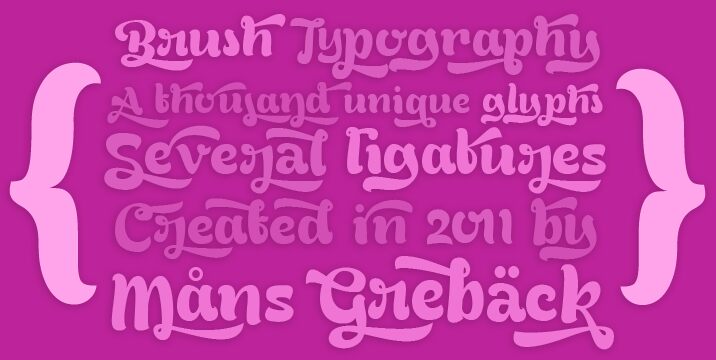
Bready by Måns Grebäck is a free groovy display font with swollen curves, dramatic thick-thin shifts, looping strokes, and the elastic swagger of 1970s psychedelic lettering. Oversized curls give the line a lively, irregular silhouette.
A bakery, record shop, or playful food brand could use it to build a warm, slightly surreal identity. It also suits festival posters and album artwork, where the rolling shapes can echo illustrated clouds, icing, or liquid patterns. In packaging, the lettering can become the central brand emblem rather than a neutral product name, especially for sweets and drinks.